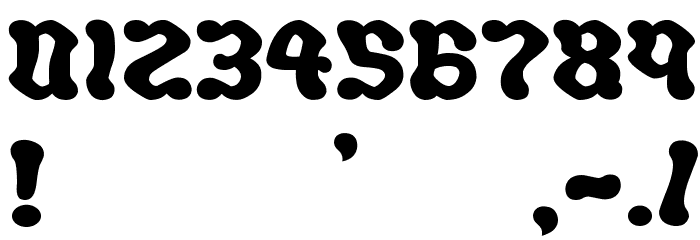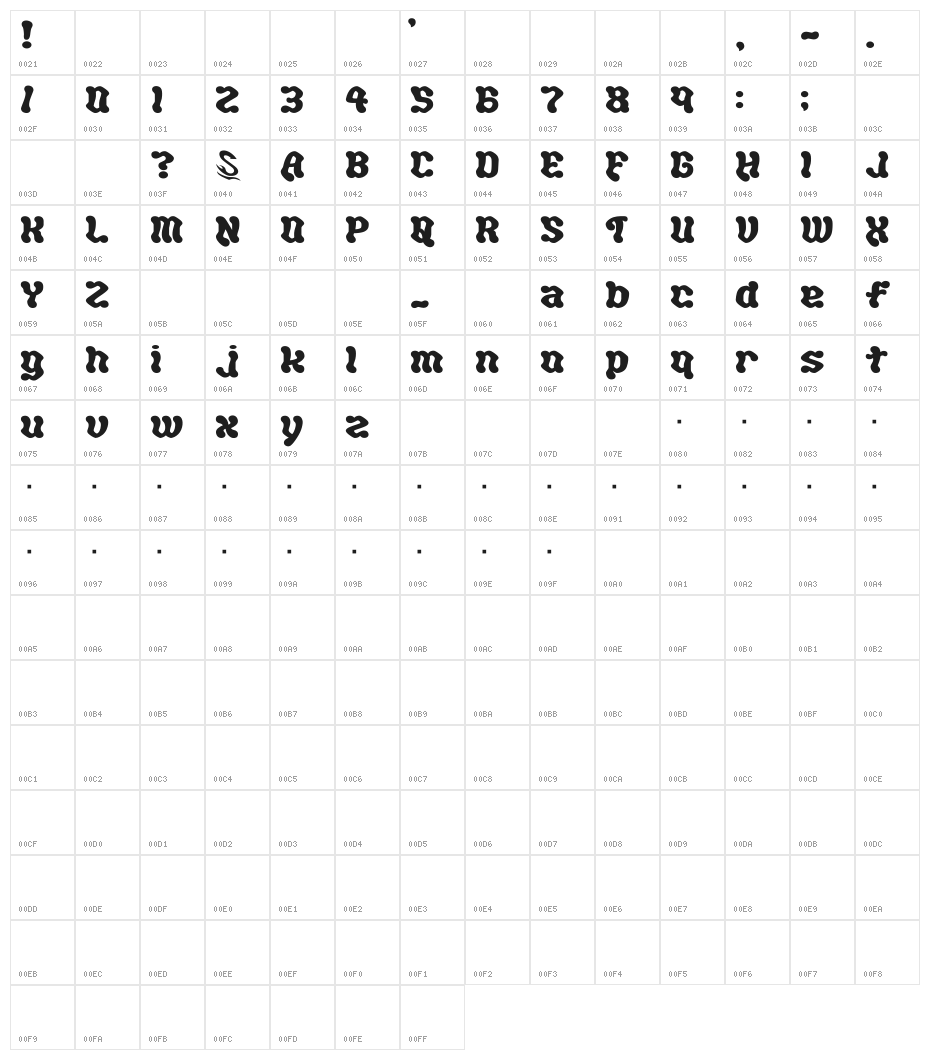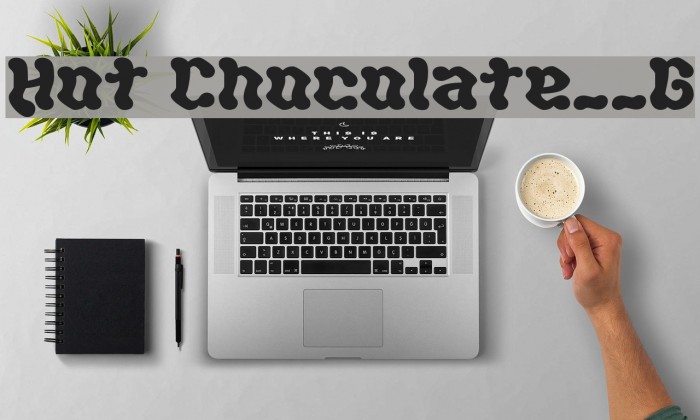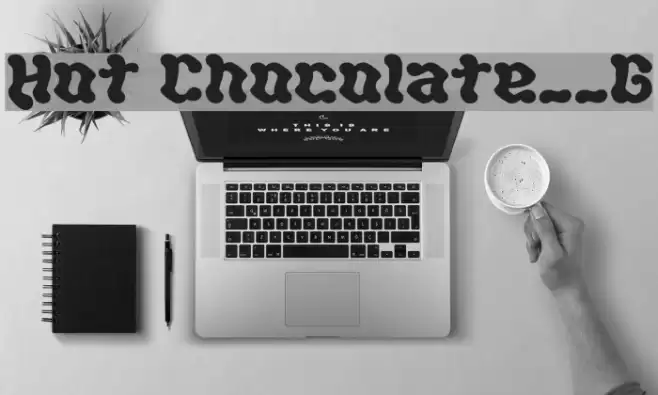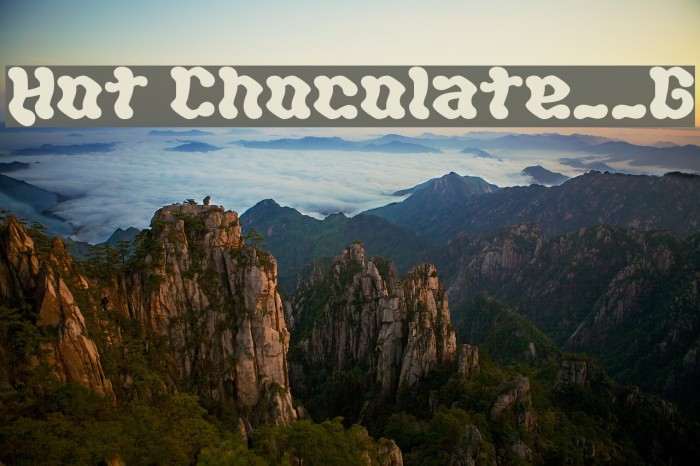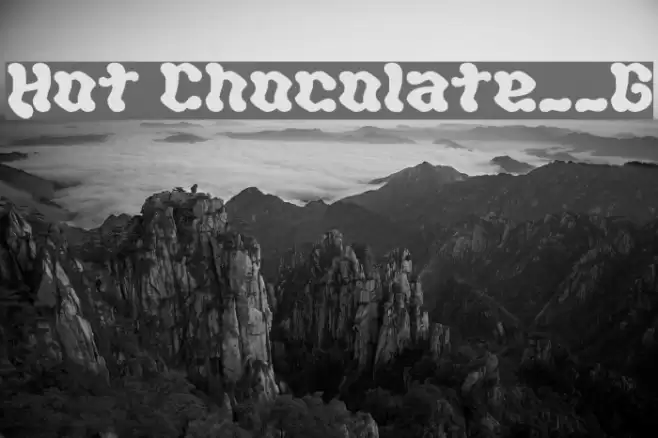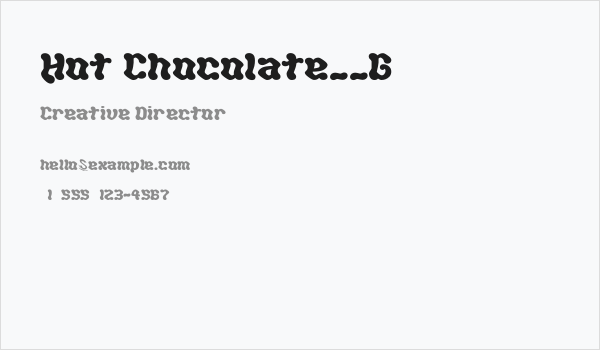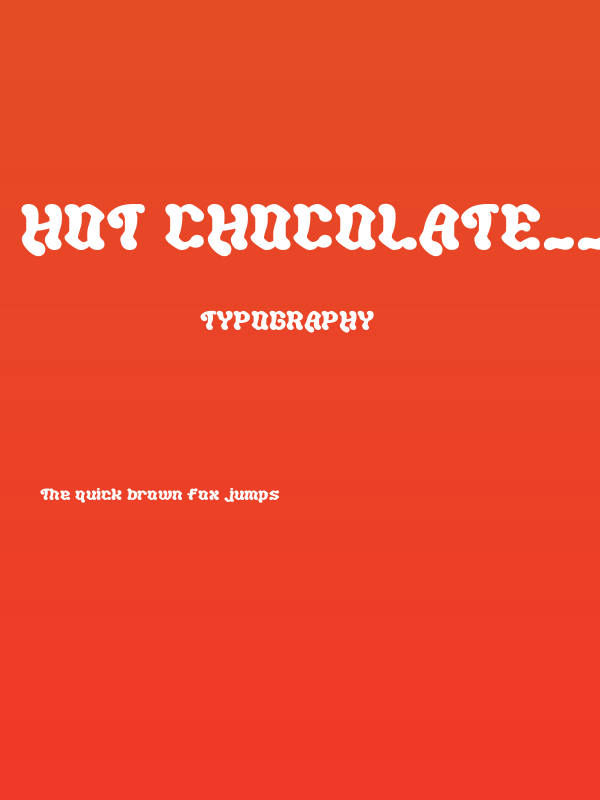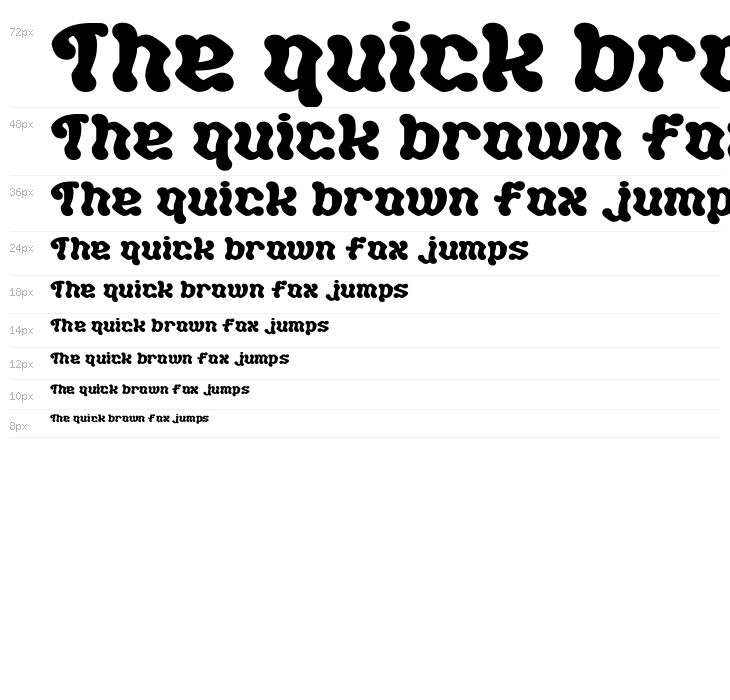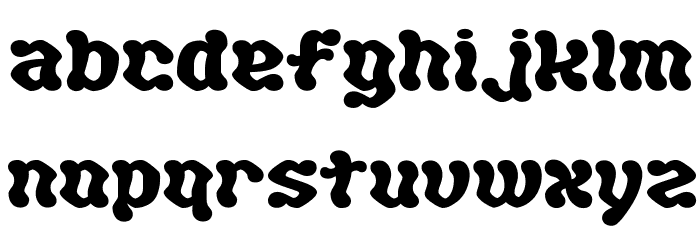
Hot Chocolate__G Font
Hot Chocolate__G Description
This font features a playful and bold design with thick, rounded strokes that give it a bubbly and dynamic appearance. The characters are uniquely shaped with a whimsical touch, making them stand out with a strong visual presence. The uppercase and lowercase letters maintain a consistent style, while the numbers and special characters complement the overall aesthetic. The font's design is reminiscent of a retro or vintage style, yet it carries a modern twist with its smooth curves and bold weight. Its distinctive look makes it suitable for creative and eye-catching projects.
| Overall Style | Playful, Retro, Modern |
| Proposed Projects | Ideal for branding, posters, children's books, and playful graphic designs. |